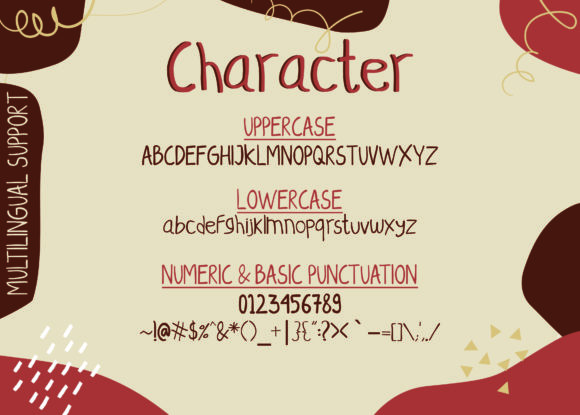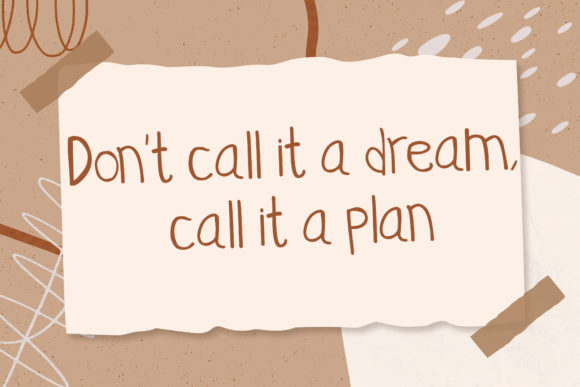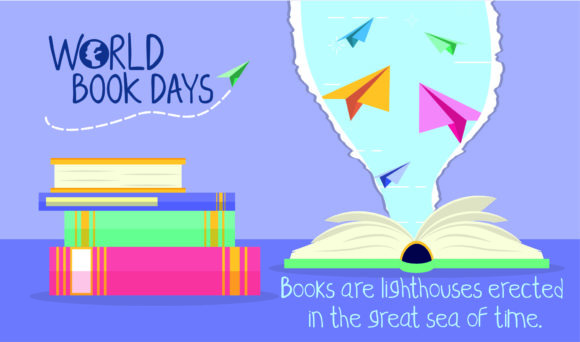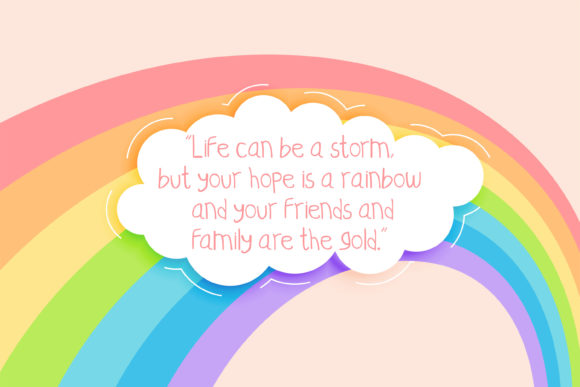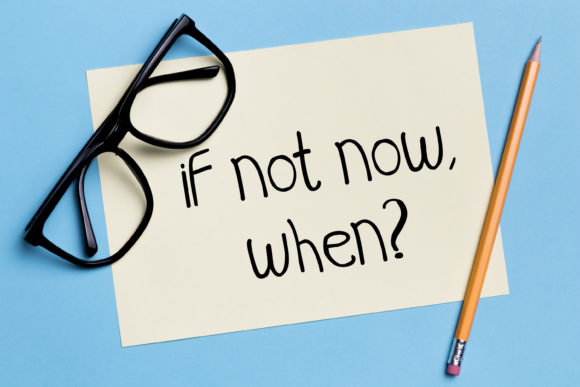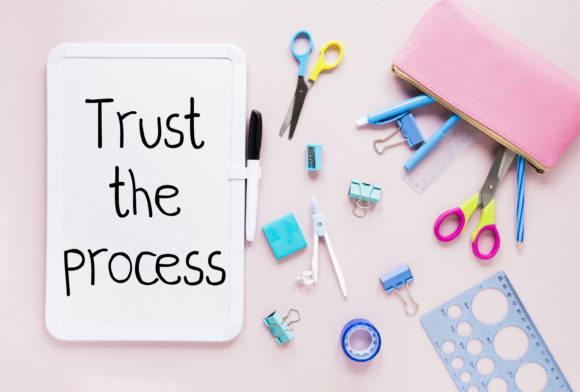
Burlywood Font: A Cute and Simple Handwritten Font for Chalkboard Quotes and Teaching Materials
Are you a designer or crafter looking for a font that can add a personal and realistic feel to your designs? Look no further than Burlywood Font! This cute and simple lettered handwritten font is perfect for creating chalkboard quotes, teaching materials, and other designs that require a touch of authenticity.
What is Burlywood Font?
Burlywood Font is a type of handwritten font that is designed to mimic the look of chalkboard writing. Its authentic look and feel make it perfect for creating designs that require a personal and realistic touch. The font is simple, yet cute, making it suitable for a wide range of design projects, from educational materials to social media graphics.
Characteristics of Burlywood Font
Burlywood Font has several characteristics that make it a popular choice among designers and crafters. Some of its key features include:
- Handwritten look: Burlywood Font has a handwritten look that is perfect for creating designs that require a personal touch.
- Simple and cute: The font is simple, yet cute, making it suitable for a wide range of design projects.
- Authentic look: The font is designed to mimic the look of chalkboard writing, making it perfect for creating designs that require an authentic look.
- Easy to read: Despite its handwritten look, Burlywood Font is easy to read, making it perfect for creating designs that require a clear and concise message.
Uses of Burlywood Font
Burlywood Font is a versatile font that can be used for a wide range of design projects. Some of its popular uses include:
- Chalkboard quotes: Burlywood Font is perfect for creating chalkboard quotes that require a personal and realistic touch.
- Teaching materials: The font is suitable for creating teaching materials, such as worksheets, posters, and presentations.
- Social media graphics: Burlywood Font can be used to create social media graphics that require a personal and authentic touch.
- DIY projects: The font is perfect for creating DIY projects, such as signs, labels, and cards.
Benefits of Using Burlywood Font
There are several benefits to using Burlywood Font in your designs. Some of its benefits include:
- Unique look: Burlywood Font has a unique look that sets it apart from other fonts.
- Versatile: Burlywood Font is a versatile font that can be used for a wide range of design projects.
| Font Name | Burlywood Font |
| Author | Asnufy Studio |
Burlywood Font is a cute and simple lettered handwritten font that is perfect for creating chalkboard quotes, teaching materials, and other designs that require a personal and realistic touch. Its authentic look and feel make it a popular choice among designers and crafters. With its ease of use, versatility, and free download option, Burlywood Font is a great addition to any design project.
Whether you’re a designer or crafter, Burlywood Font is a great font to have in your collection. So why not give it a try and see how it can add a personal and realistic touch to your designs?